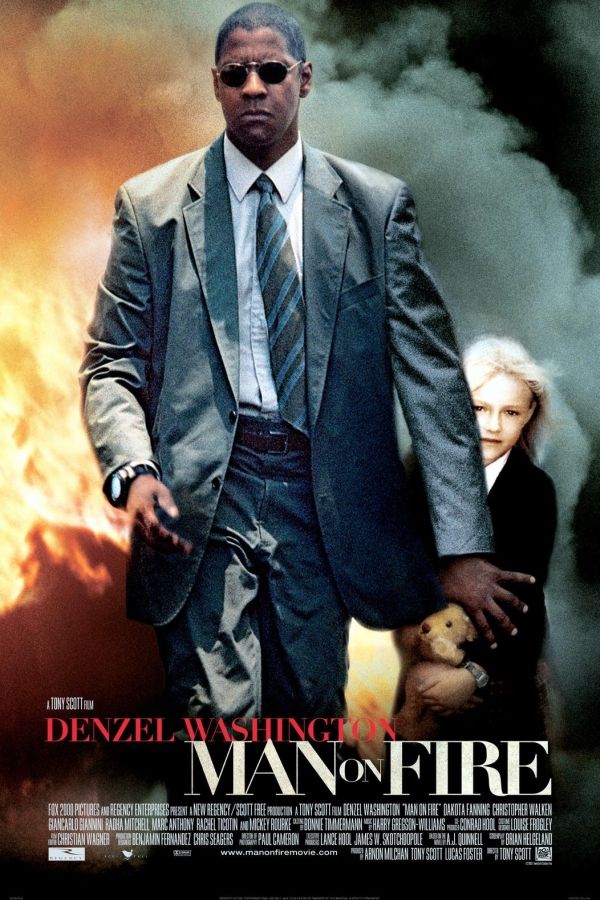
Man on Fire Font
ActionMan on Fire is a 2004 action thriller film directed by Tony Scott. The story follows a former CIA operative turned bodyguard who goes on a relentless rampage of revenge when a young girl he is assigned to protect is kidnapped in Mexico City.
The movie title on the poster most likely features Didot Bold, a contemporary typeface created by Adrian Frutiger in 1992. Additional information about it can be found here.